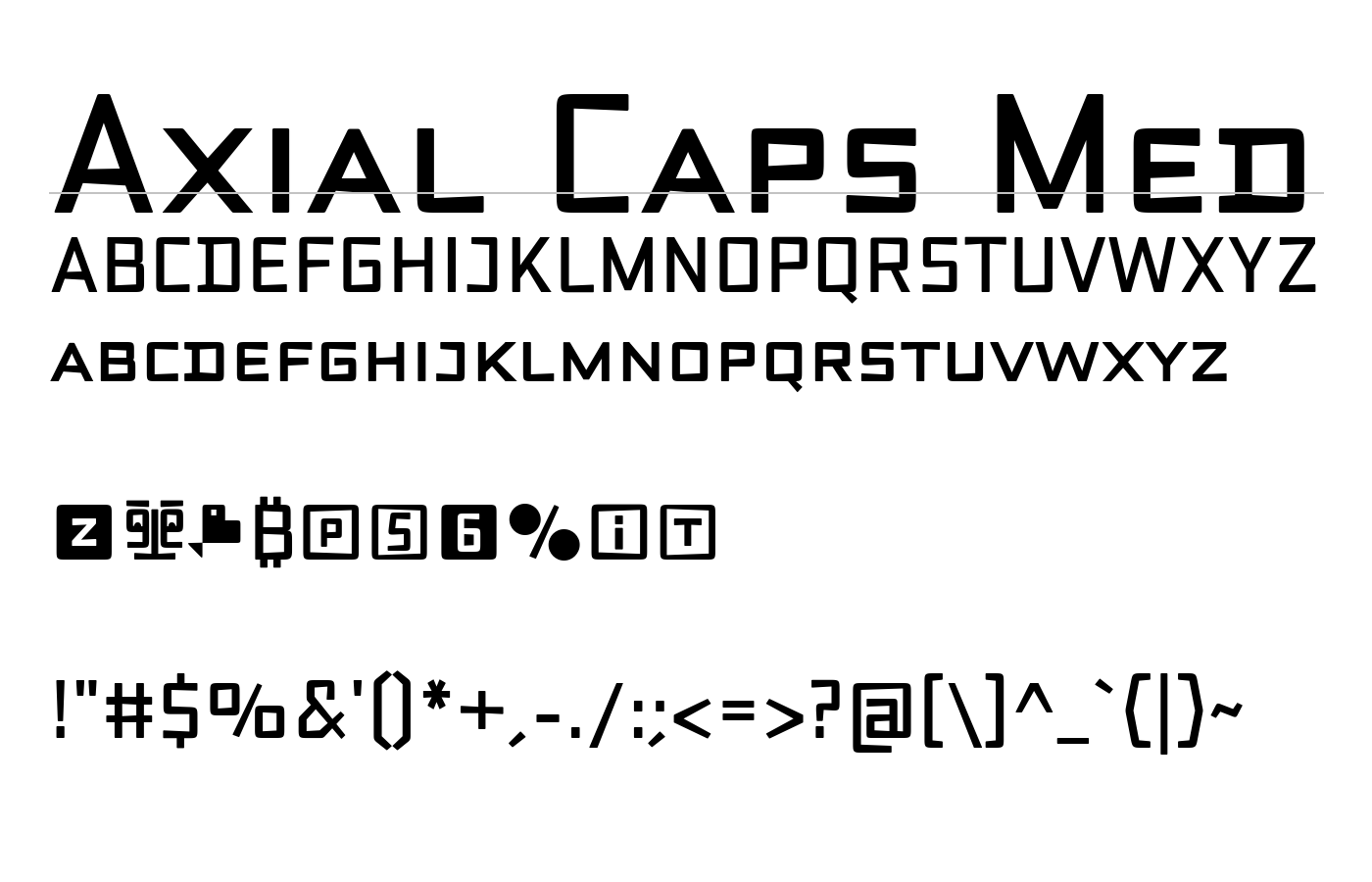
Axial Caps is a bold, geometric sans serif font featuring a clean, mechanical style with uniform stroke widths and slightly squared letterforms. Its all-caps design and modern, technical feel make it ideal for futuristic branding, tech headlines, or editorial use where a strong, distinctive presence is needed. This font works well in logos and posters that require a sleek, industrial look with a touch of uniqueness.
Axial Caps Font
About Axial Caps Font